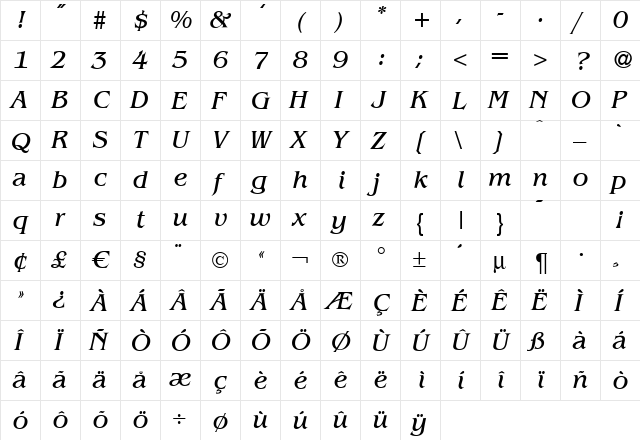
B693-Roman Italic
Design Context for B693-Roman Typeface
B693-Roman offers clean, dependable letterforms without strong stylistic allegiance, making it a practical choice for designers who need flexibility. The dynamic lean of this cut emphasises speed and emphasis in any layout.
Pro Tip: Try B693-Roman for annotation and caption copy alongside an upright companion — the contrast in angle creates a dynamic but ordered typographic system.